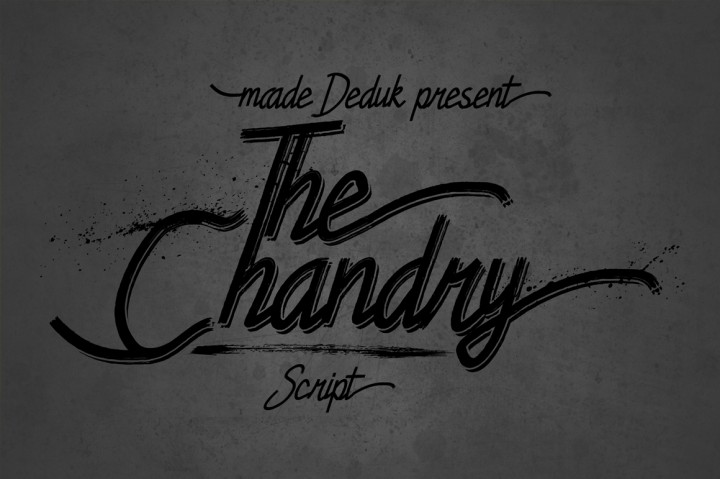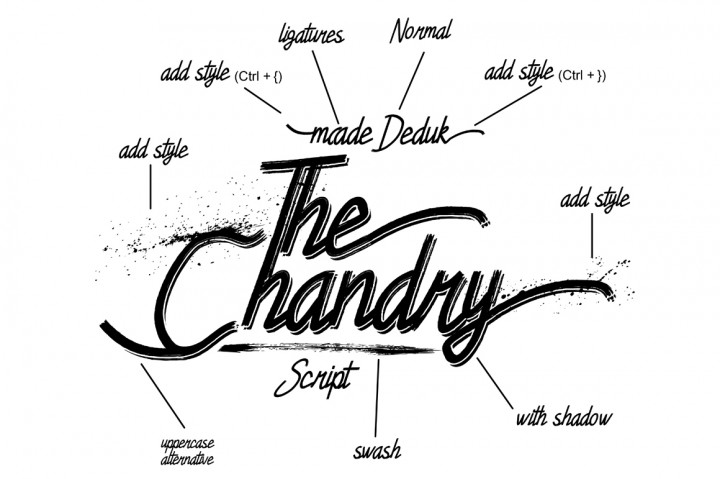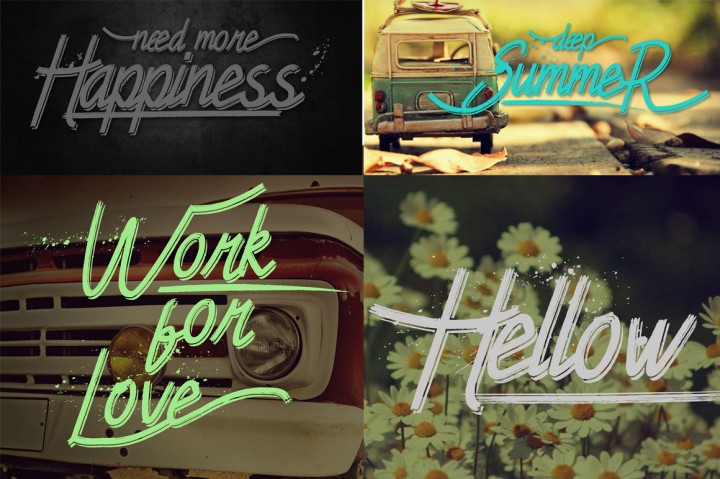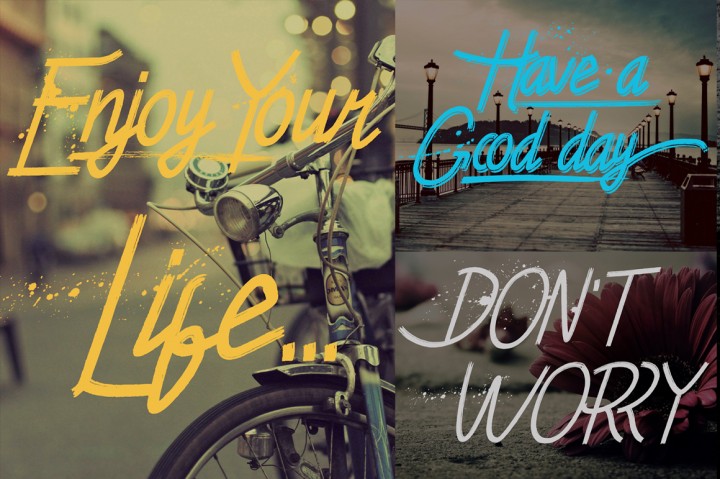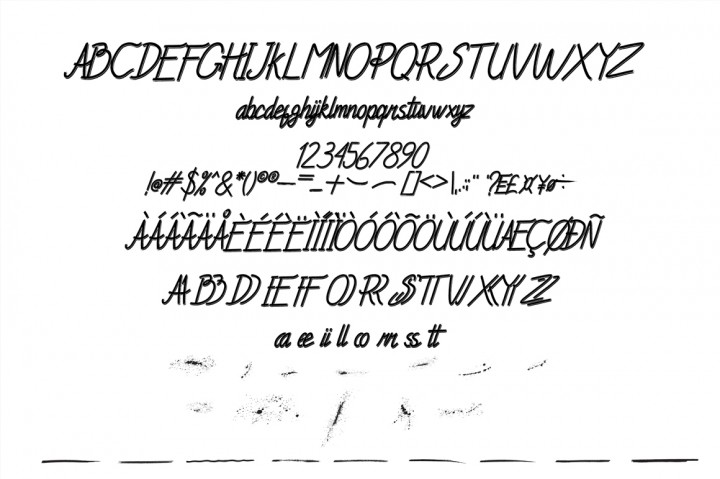
HomeScript FontsChandry Font Script Fonts Chandry Font FacebookXPinterestWhatsApp Chandry Font Poster 2 Chandry Font Poster 3 Chandry Font Poster 4 Chandry Font Poster 5 About Chandry Font Chandry is a classical looking hand drawn font created by the madeDeduk foundry. DOWNLOAD NOW People also explored Valentine Signature Font Bargo Font BubbleMan Winter Font Odeion Font Juneteenth Font Bungah Font Hand Beer Mockup Shogun Font 319 0 TagsChandry Font Previous articleRowdy FontNext articleBreathe Karma Font LEAVE A REPLY Cancel reply Comment: Please enter your comment! Name:* Please enter your name here Email:* You have entered an incorrect email address! Please enter your email address here Website: Save my name, email, and website in this browser for the next time I comment. Personal Use Free Lixdu Personal Use Free Read more about this font Starter Personal Use Free Read more about this font Mail Ray Stuff Personal Use Free Read more about this font Midnight Show Personal Use Free Read more about this font BLOG 5 Fonts That Will Dominate Design Trends in 2026 5 Fonts for 2026 That Will Dominate Design Trends Typography plays a critical role in visual communication, and as we look ahead to 2026, it’s... Using Fonts in Digital Marketing: Tips to Strengthen Your Brand Identity To increase your work productivity, choose the most readable fonts. Free Fonts Risk: Why Free Fonts Can Be Dangerous for Designers